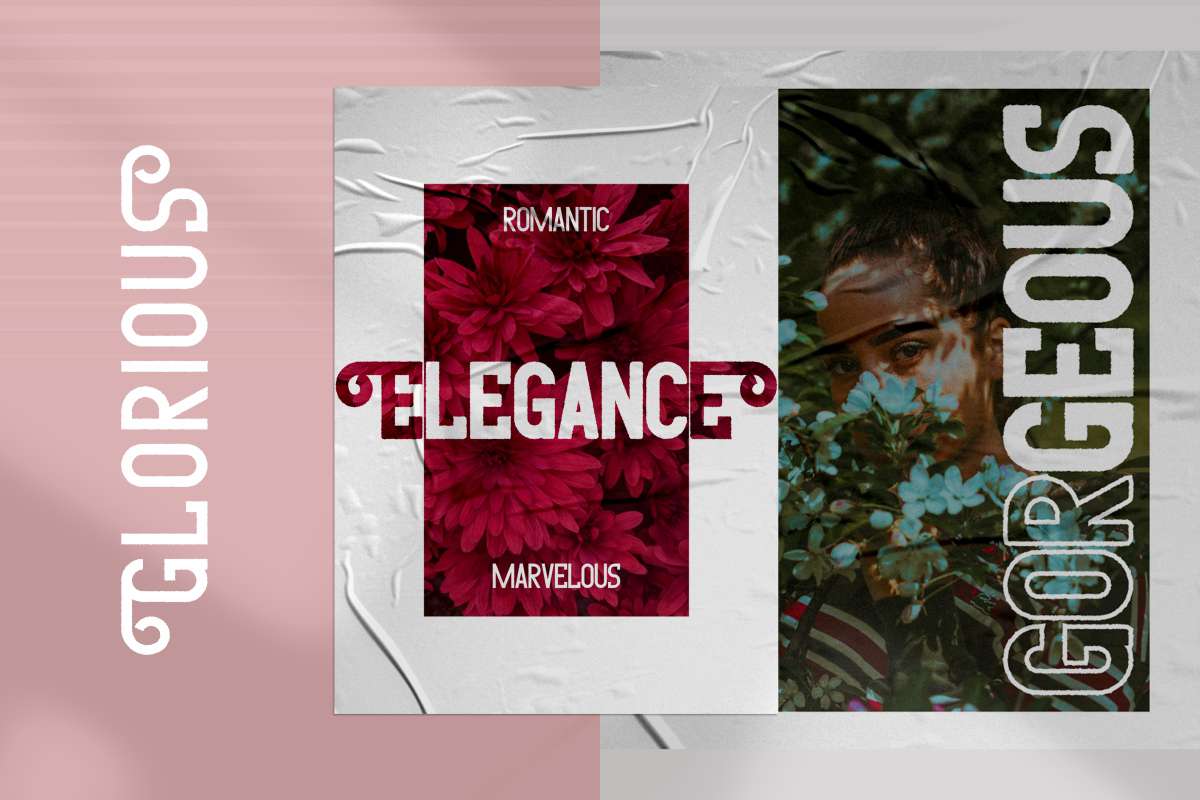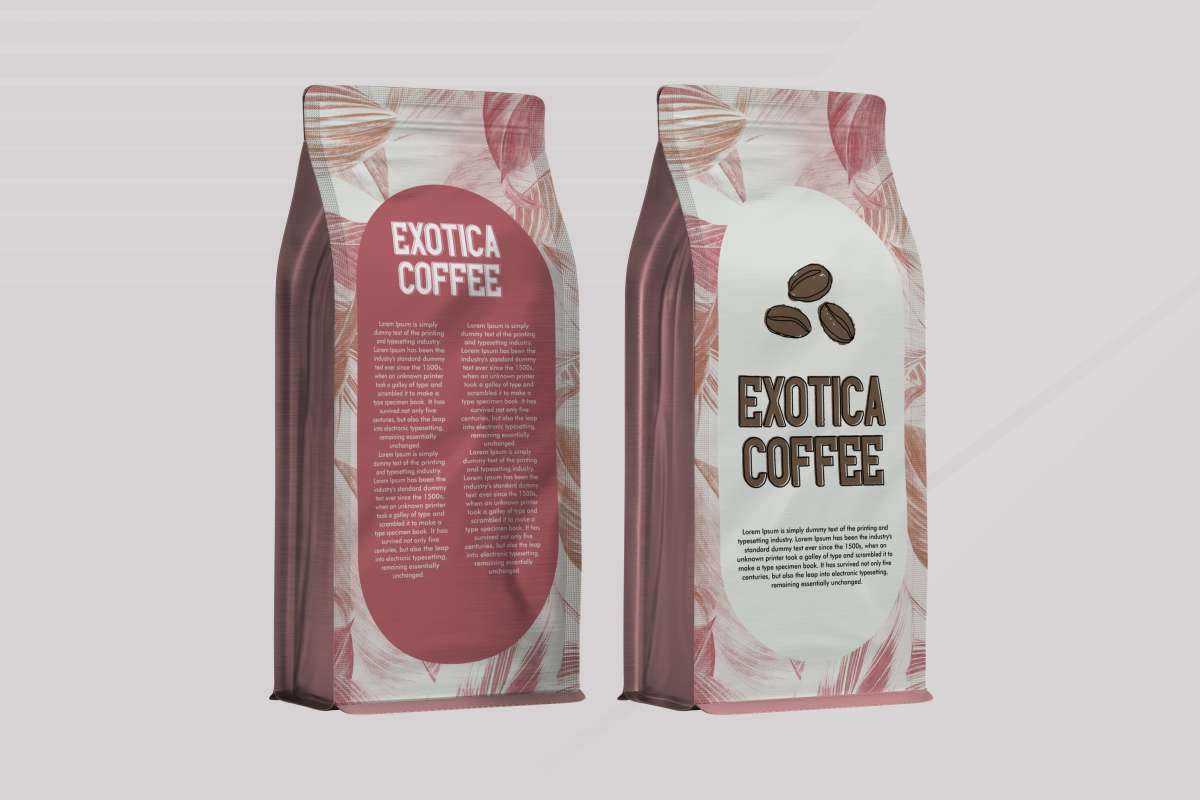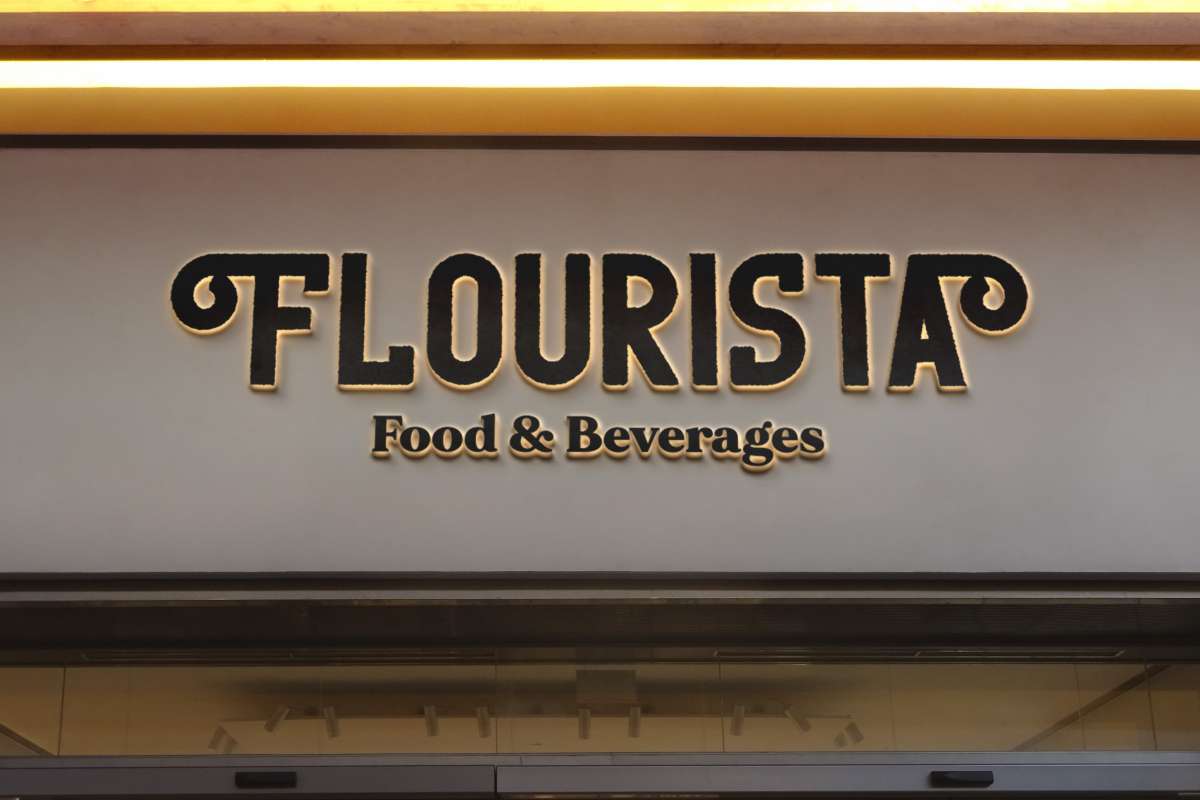
Sweetzy Font
Sweetzy Display Font
It’s a unique fancy font with eroded style in every letter. This font is bold and regular with a brush selection such as feathers/vibration on the appearance of the letterform, and has curly alternatives for each letter. It has a unique style that will bring the special effect to the design. It will works for events, branding, artist, make up, and any other fun things. Sweetzy includes full set of Uppercase and Lowercase Basic Characters, Numerals and Punctuation. This font will also work for many projects such as, fashion products, coffee shop, book covers, headlines, posters, products, signs etc